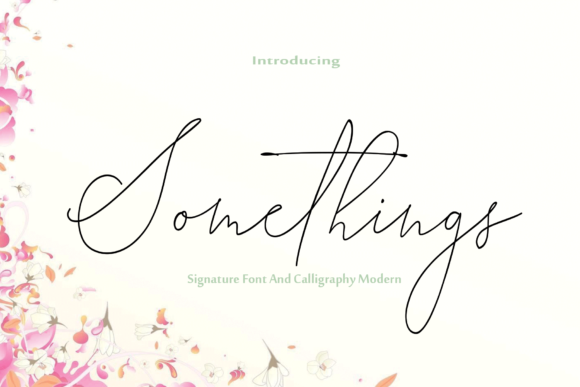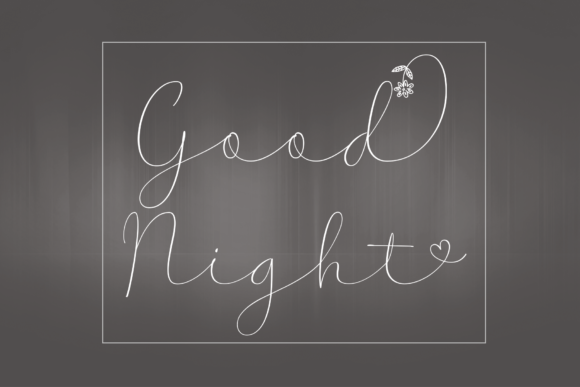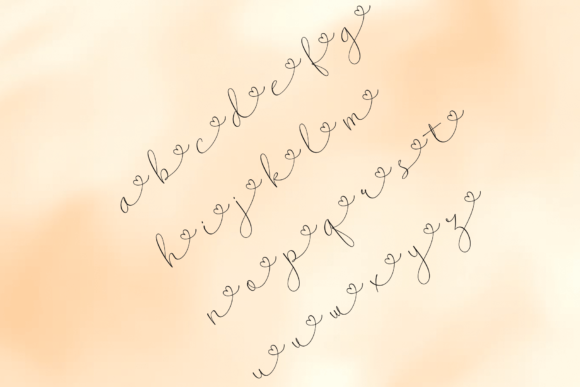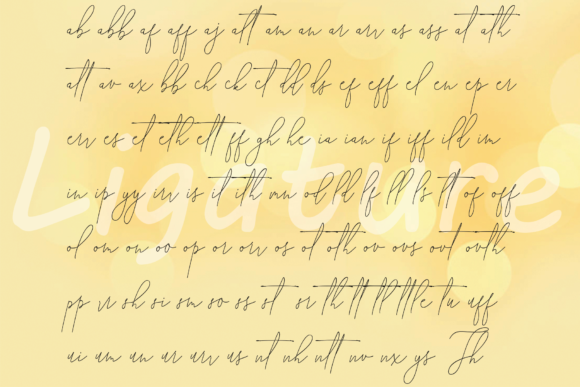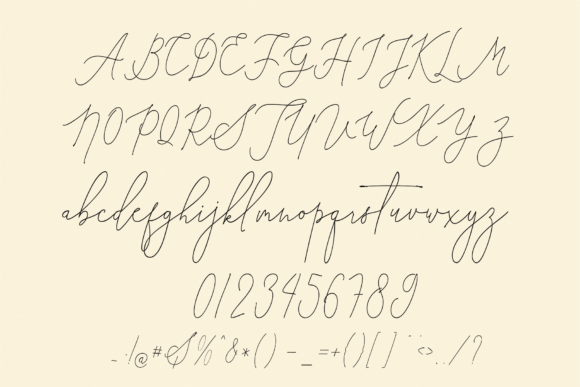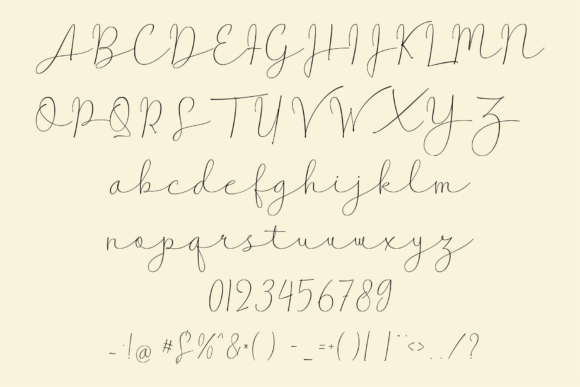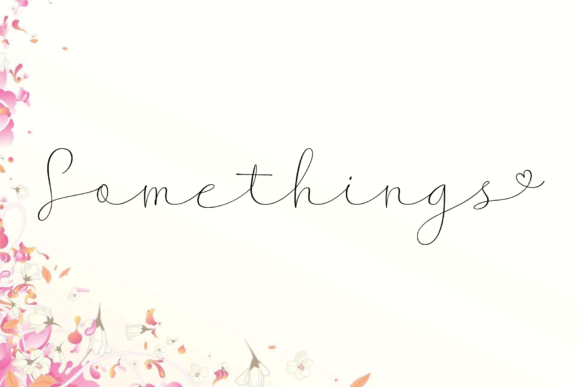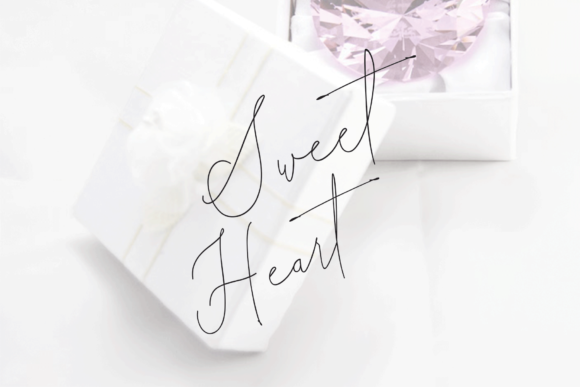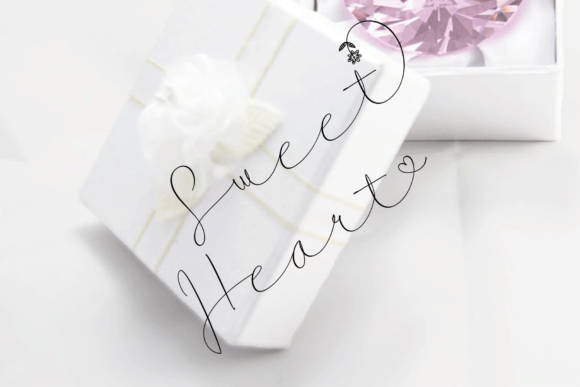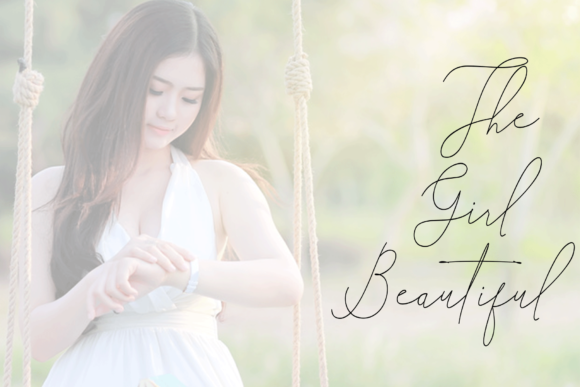
Somethings Font
About Somethings Font
The Somethings is a beautiful handwritten font. It has a natural feel and is perfect for adding a personal touch to your designs.
It can be used for invitations, signatures, blogs, social media, business cards, product brands, and much more!